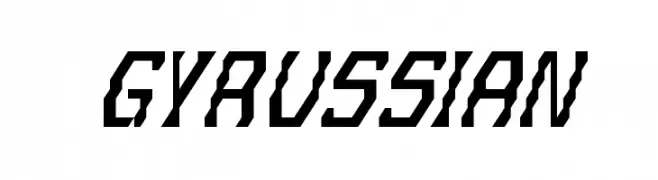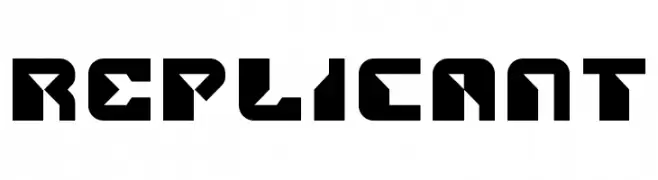
A bold, embossed-style font with a retro, industrial feel.
A bold, geometric font with angular, digital-inspired letterforms.
A pixelated, retro-style font with a blocky, geometric design.
A pixelated, blocky font with a retro digital aesthetic.
A bold, playful font with a bubbly, cartoonish style.
A modern, geometric font with rounded edges and a clean, minimalistic design.
A bold, futuristic font with geometric shapes and sharp angles.